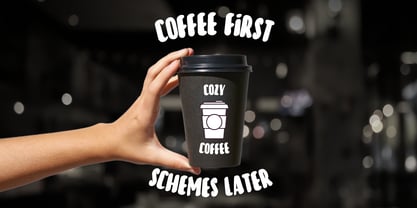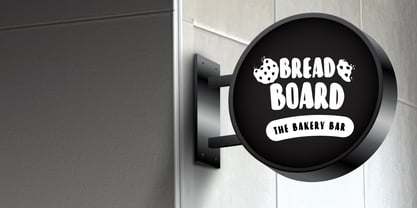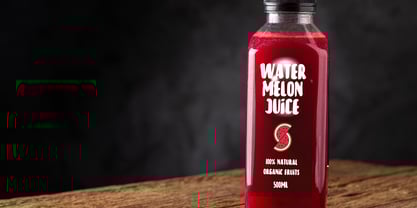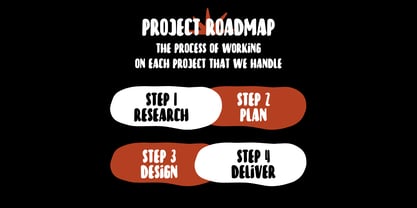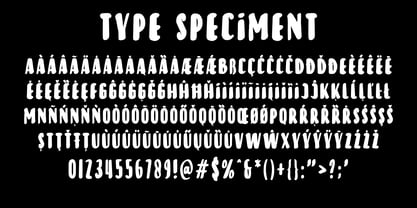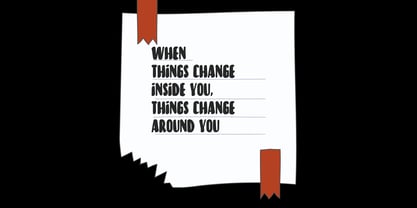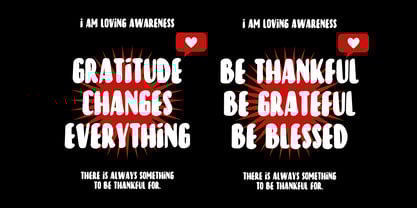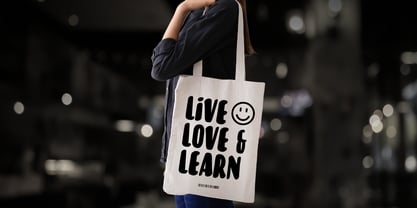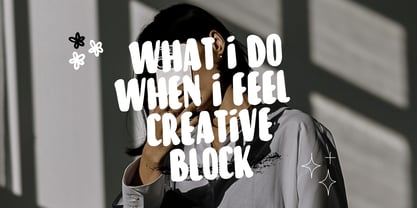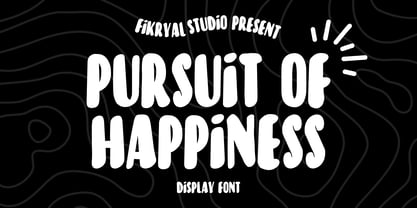
Pursuit Of Happiness
Pursuit Of Happiness is a fun and playful handwritten display font that brings personality and charm to your designs. This all-caps font features organic strokes that create an energetic and relaxed vibe, perfect for various creative projects like branding, packaging, posters, quotes, and social media.
With extensive multilingual support, Pursuit Of Happiness allows you to craft stunning designs for global audiences effortlessly. Let this joyful and vibrant font elevate your design projects and spread happiness in every detail!
Key Features:
• Playful handwritten all-caps design
• Perfect for branding, packaging, posters, and social media
• Extensive multilingual language support